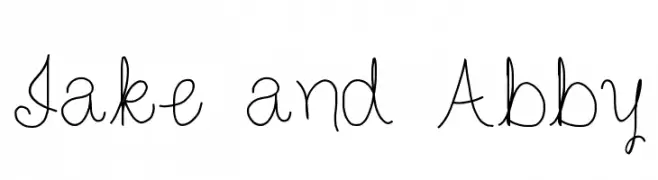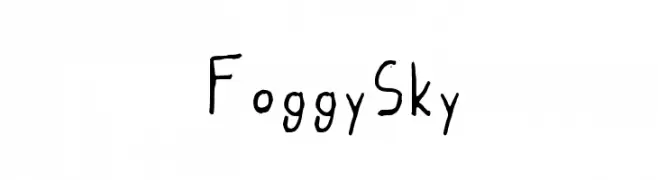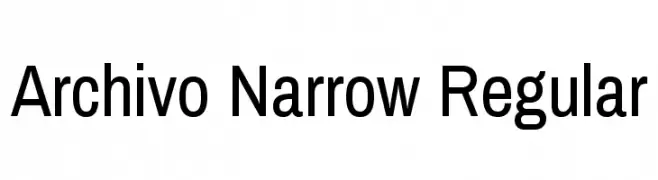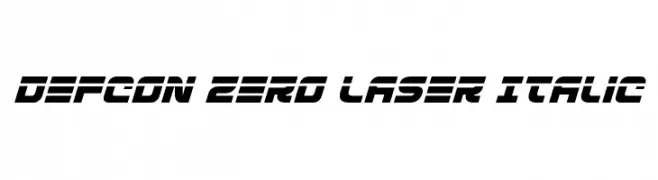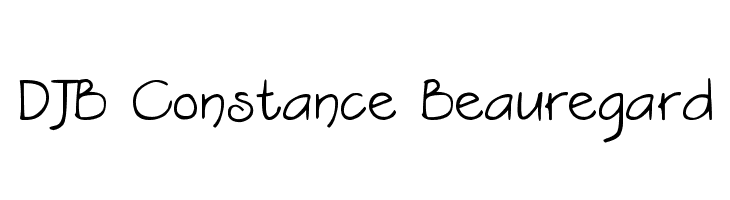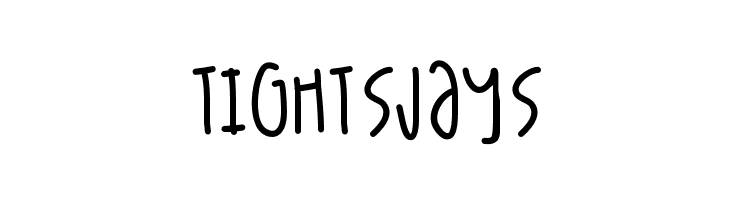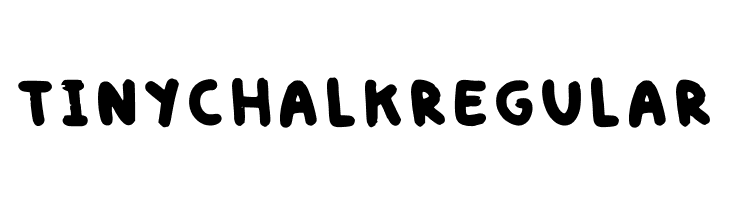
An elegant, high-contrast script font with flowing, cursive characters and ornate details.
A geometric, triangular font with a bold and futuristic design.
A playful, sketch-like font with uneven strokes and a hand-drawn feel.
A playful, whimsical handwritten font with flowing strokes and a casual feel.
A playful, handwritten font with irregular strokes and a casual, organic feel.
A bold, playful font with a handcrafted, whimsical style.
A clean, modern, and narrow typeface with high legibility and versatility.
A futuristic, italicized font with bold, angular shapes and tight spacing.